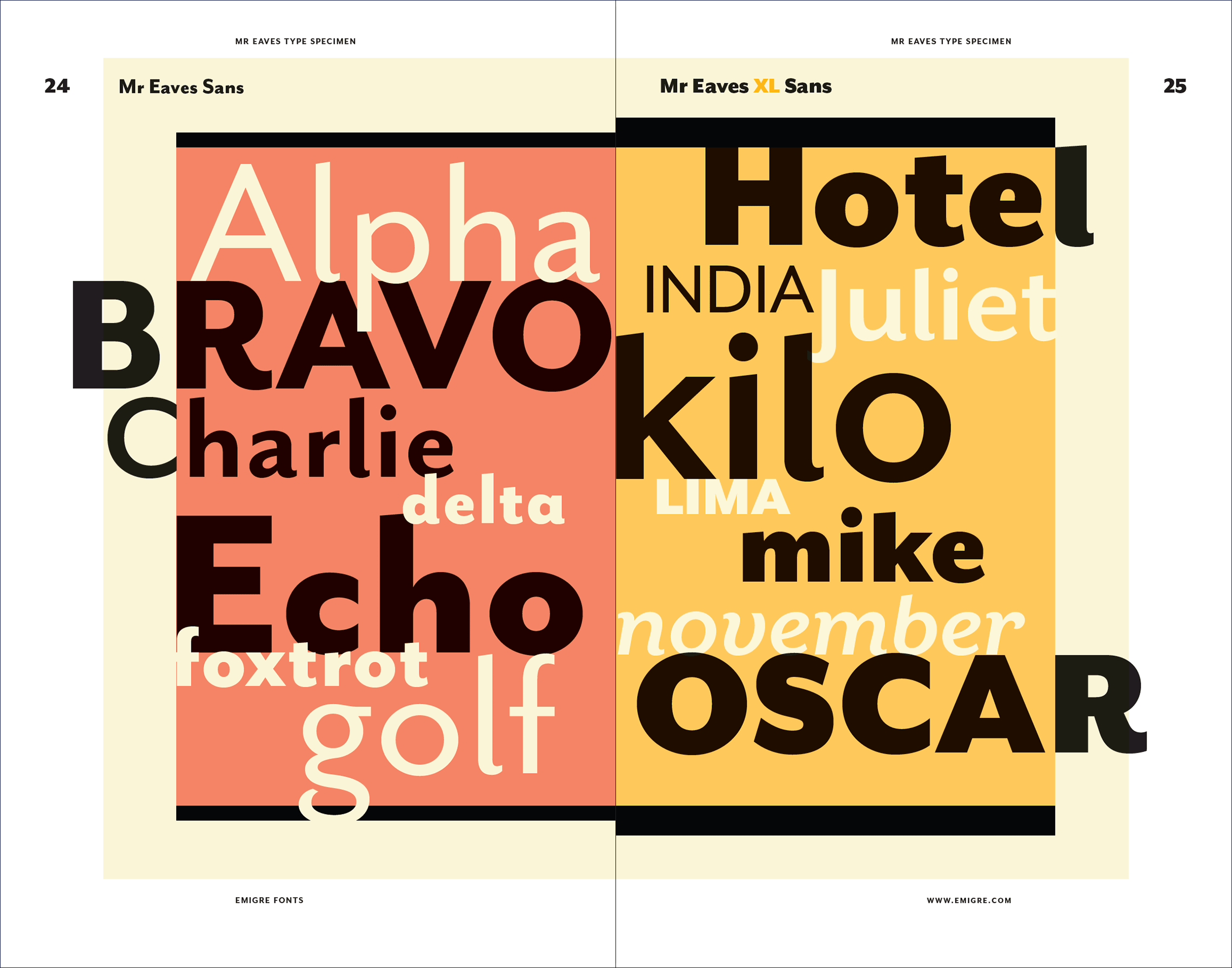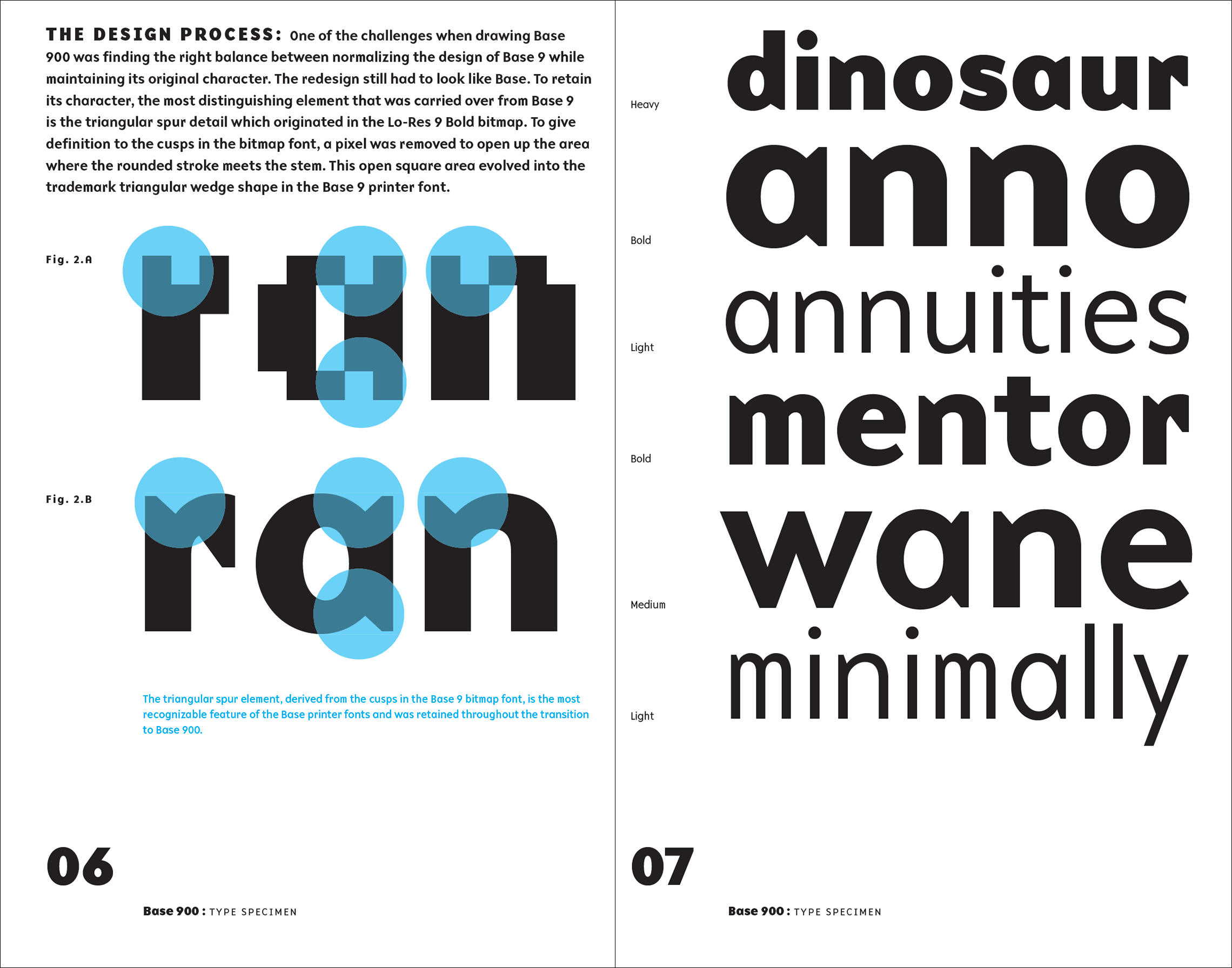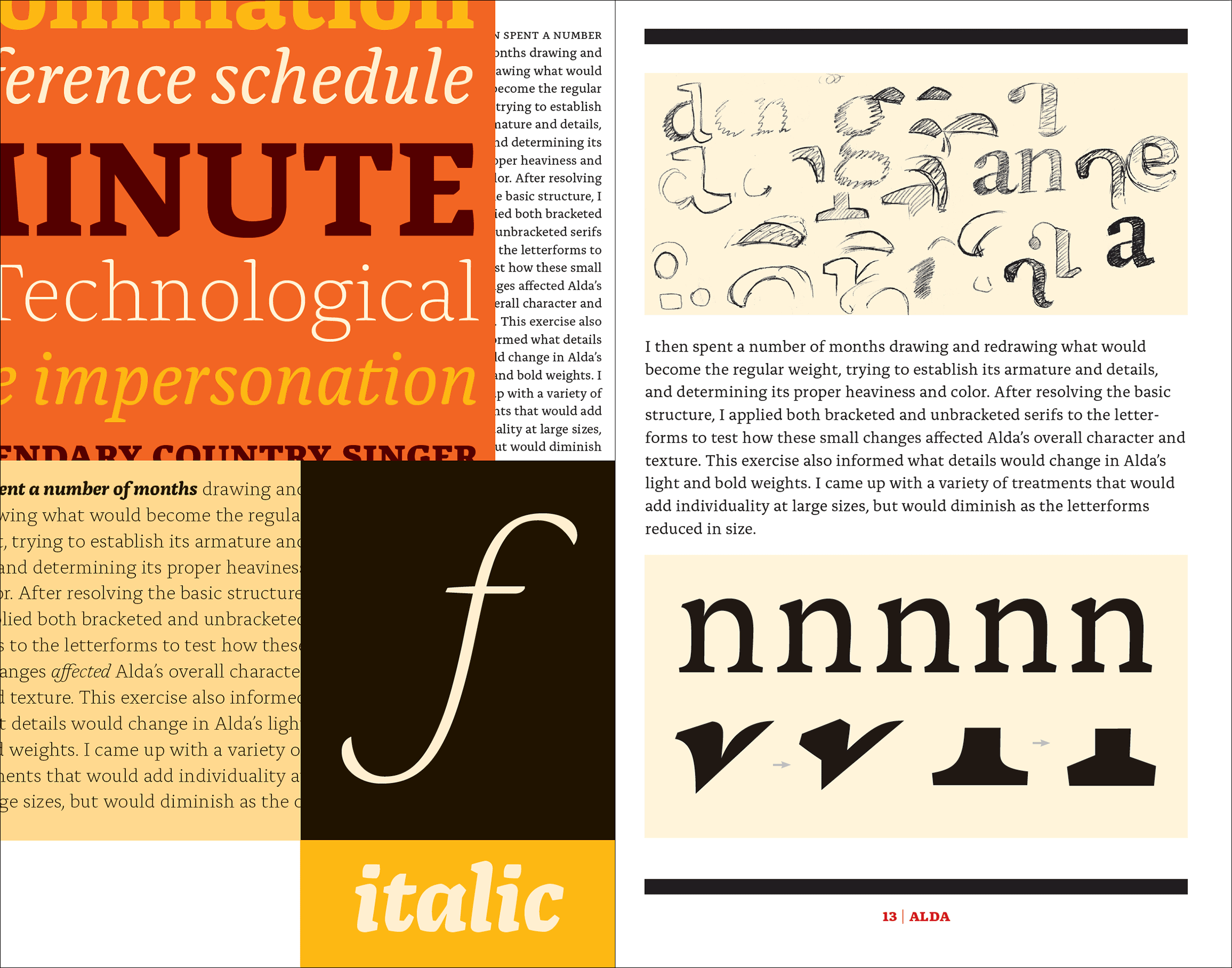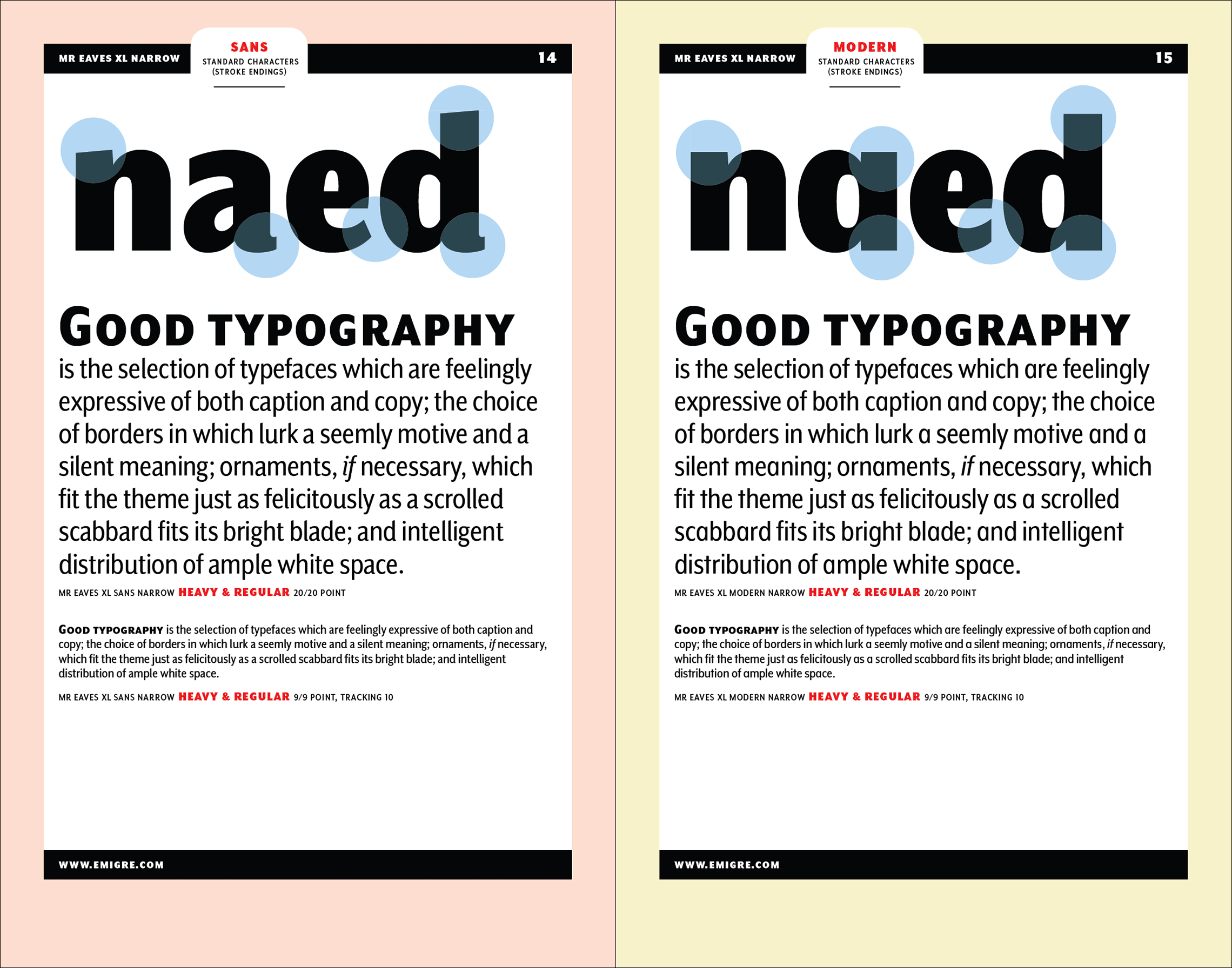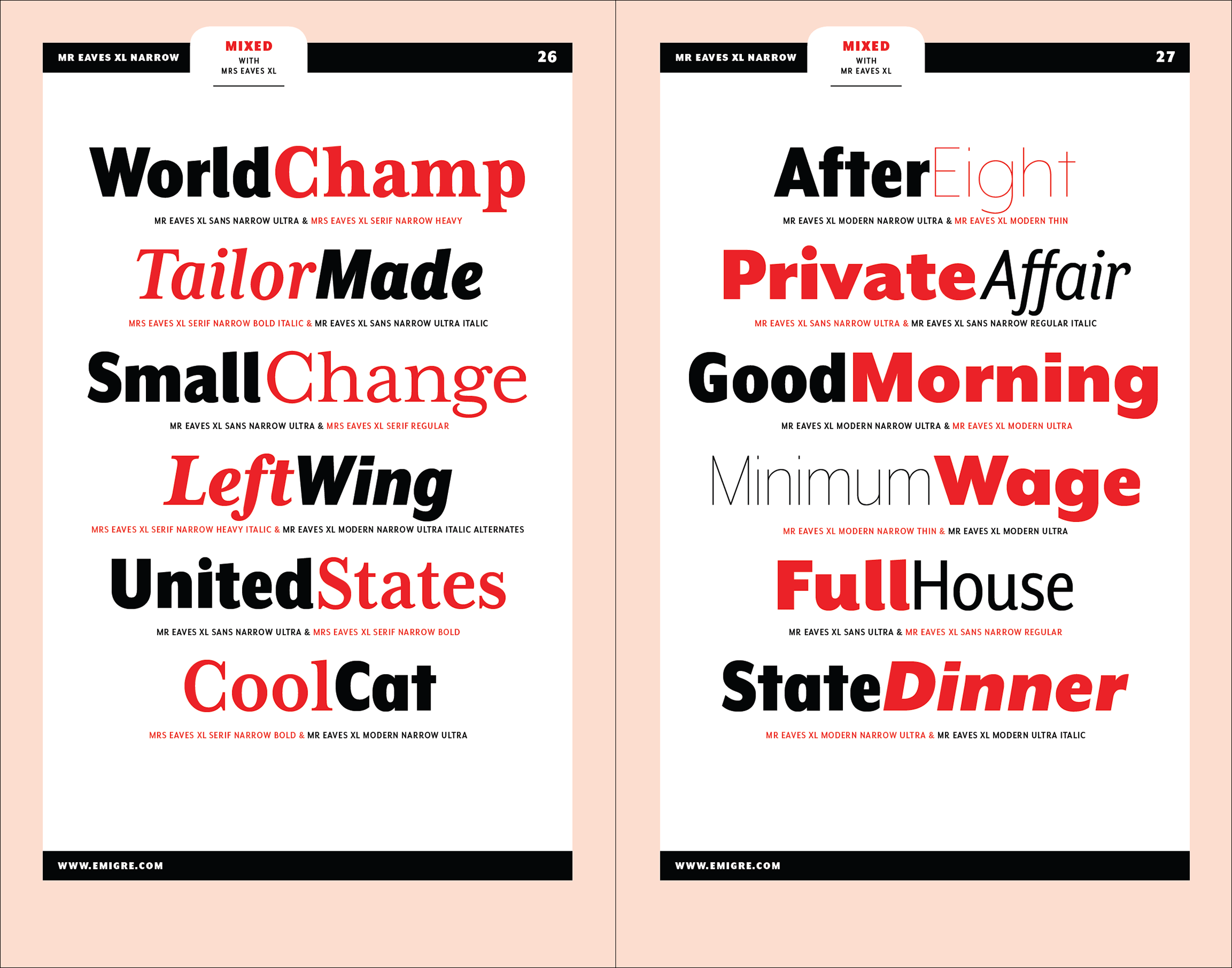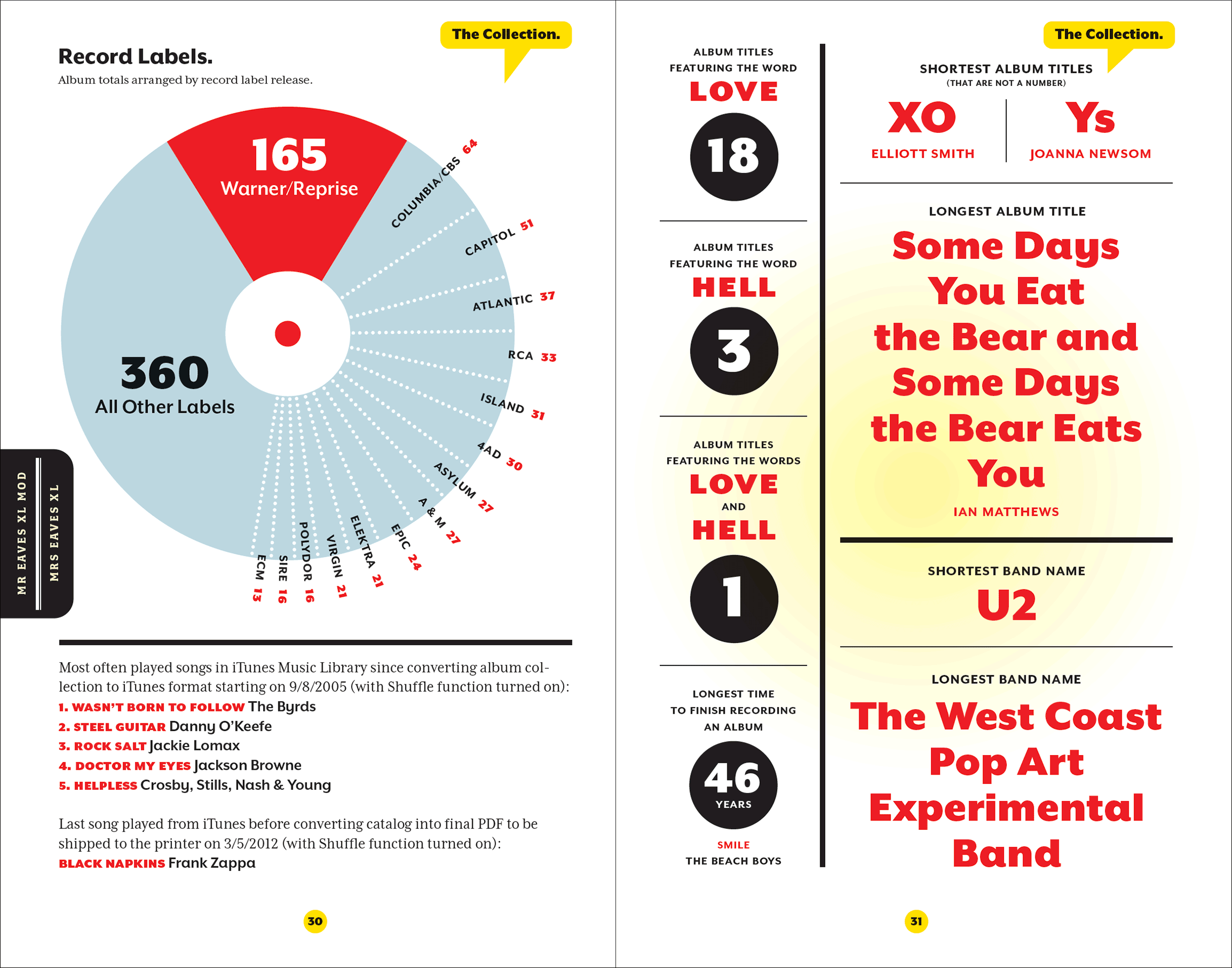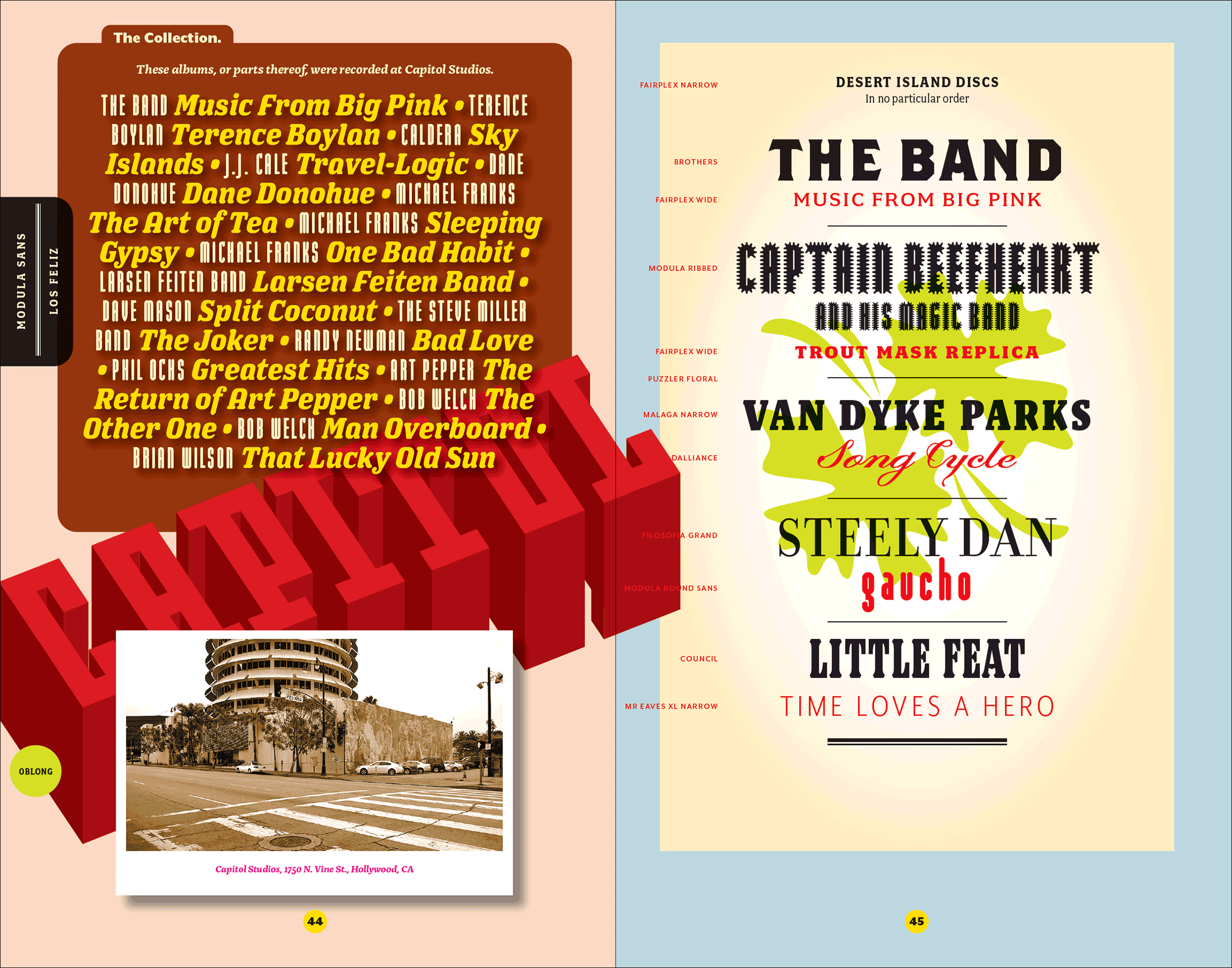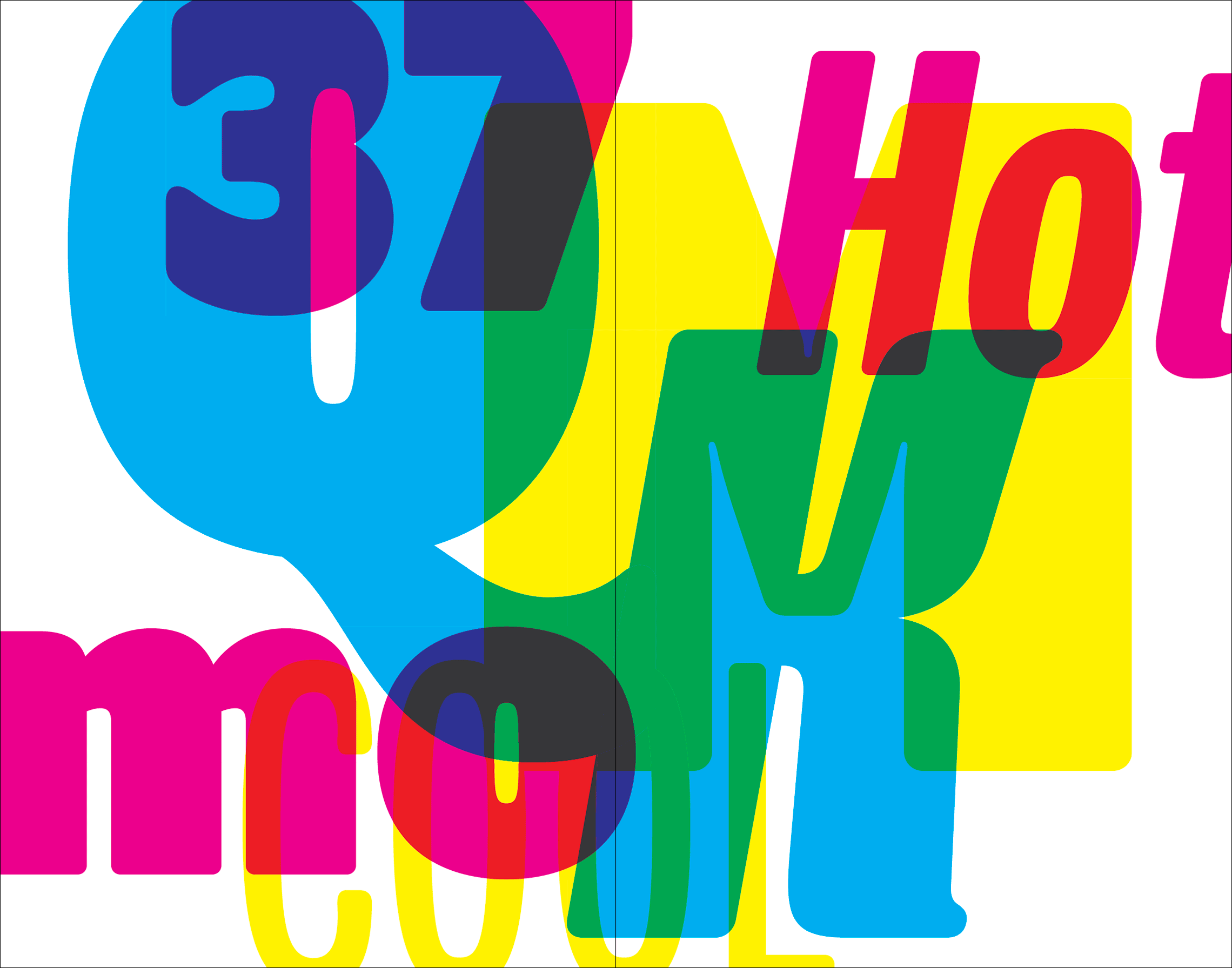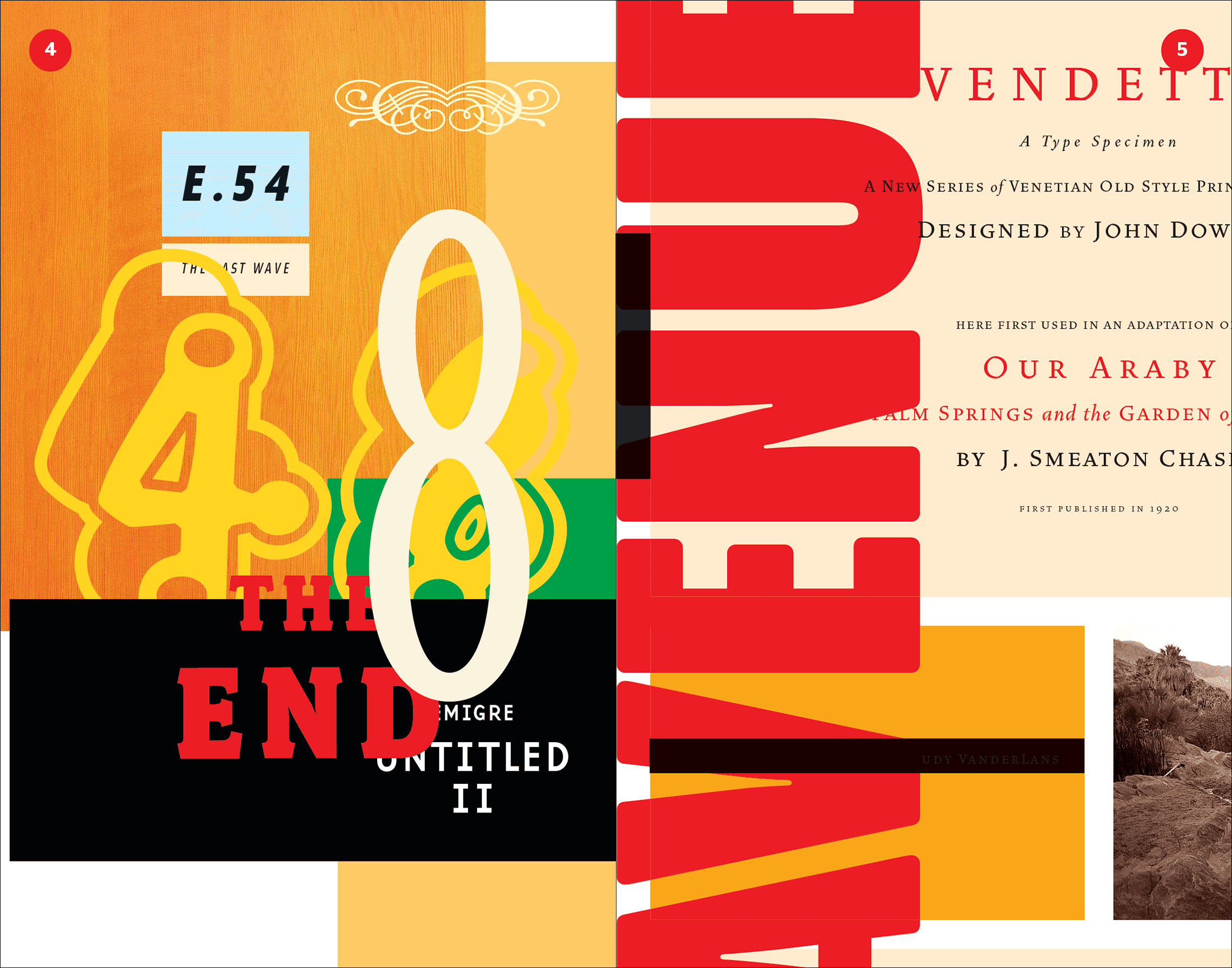
Emigre Fonts: Type Specimens, 1986-2024
Published by Letterform Archive.
Designed and edited by Rudy VanderLans.
Emigre is happy to partner with San Francisco-based Letterform Archive on a reissue of our first volume of type specimens, an ample tome first published in 2016 and since sold out. But this time, we nearly doubled its already impressive extent to more than 1,200 pages and added new texts by Letterform Archive associate curator Stephen Coles and longtime Emigre collaborator Jeffery Keedy. In addition to specimens not included in the first volume, Licko and VanderLans also revisited their type design process files to create a special behind-the-scenes section, offering readers a look at their photos, sketches, and hand-written correspondence.
“Emigre will always be associated with the new typography of the 1990s, but recalling those qualities that were most inspirational or most provocative at the time gravely risks overlooking the sheer breadth of ambition and diversity of themes, and its historical span as journal, foundry and online resource. One of the many virtues of this compendium is in restoring some balance to these conceptions. What emerges is a collection that covers a range of enquiry and ambition both wider and more varied than we tend to associate with the ‘brand’. Rather, it seems as if each key tendency, design question, debate or avenue of speculative enquiry in the field of typeface design is represented here in some form: the ways in which letters might be constructed, the font as hypothesis or polemic, as statement of possibility or disruptor of orthodoxies. Emigre was at the forefront of a dizzying succession of debates.” — Will Hill, Parenthesis 50, Spring 2026